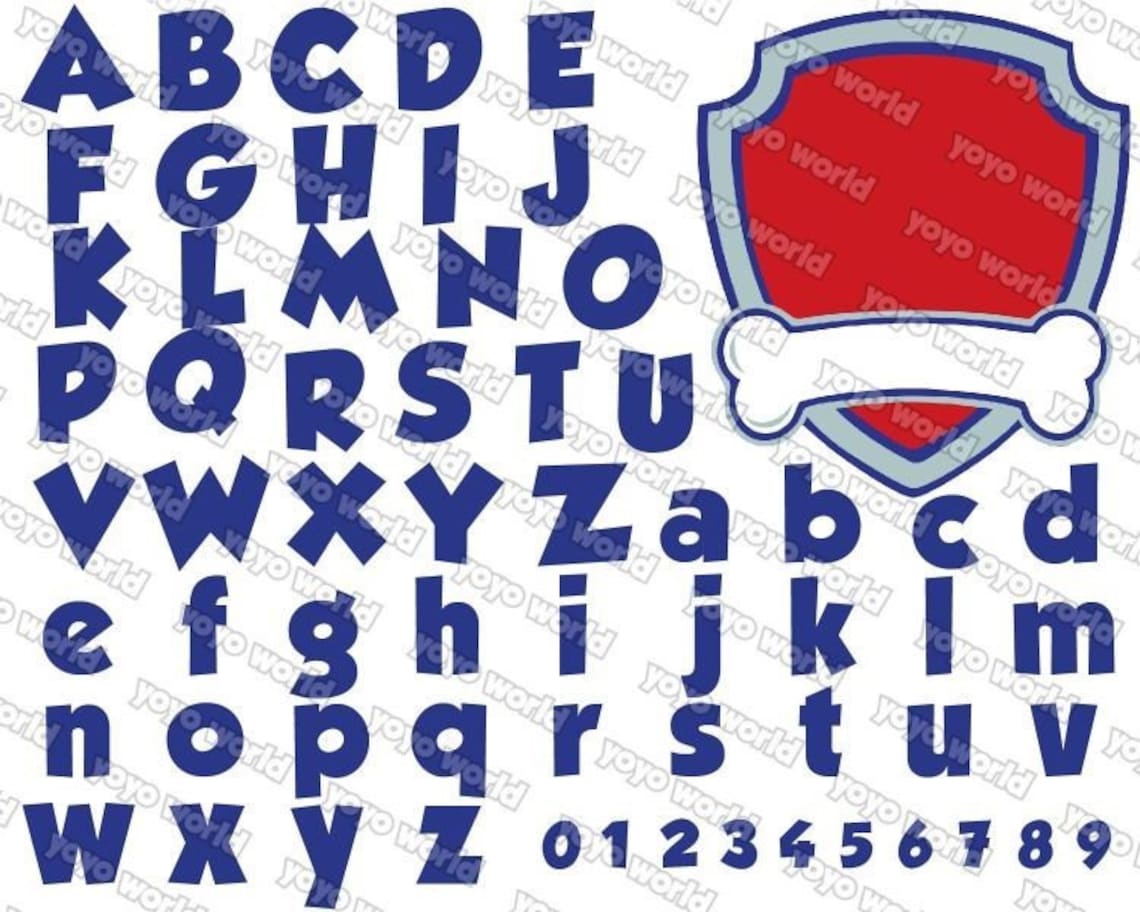
Free Paw Patrol Font
Free Paw Patrol Font - The paw patrol font family is based on an animated television show that was created by keith chapman. Paw patrol font has an elegant style, as. This tv series was first aired in. This free font family features numerals, styles and text figures which adorn its pages. Did you ever find a font for paw? this one is similar but not exact. Im looking for the paw patrol logo.
Paw patrol font has an elegant style, as. This free font family features numerals, styles and text figures which adorn its pages. Did you ever find a font for paw? this one is similar but not exact. The paw patrol font family is based on an animated television show that was created by keith chapman. This tv series was first aired in. Im looking for the paw patrol logo.
The paw patrol font family is based on an animated television show that was created by keith chapman. This tv series was first aired in. Paw patrol font has an elegant style, as. Did you ever find a font for paw? this one is similar but not exact. This free font family features numerals, styles and text figures which adorn its pages. Im looking for the paw patrol logo.
This free font family features numerals, styles and text figures which adorn its pages. This tv series was first aired in. The paw patrol font family is based on an animated television show that was created by keith chapman. Im looking for the paw patrol logo. Did you ever find a font for paw? this one is similar but not.
The paw patrol font family is based on an animated television show that was created by keith chapman. Im looking for the paw patrol logo. Paw patrol font has an elegant style, as. This free font family features numerals, styles and text figures which adorn its pages. Did you ever find a font for paw? this one is similar but.
The paw patrol font family is based on an animated television show that was created by keith chapman. This free font family features numerals, styles and text figures which adorn its pages. This tv series was first aired in. Im looking for the paw patrol logo. Did you ever find a font for paw? this one is similar but not.
This free font family features numerals, styles and text figures which adorn its pages. Paw patrol font has an elegant style, as. This tv series was first aired in. Did you ever find a font for paw? this one is similar but not exact. The paw patrol font family is based on an animated television show that was created by.
This tv series was first aired in. Did you ever find a font for paw? this one is similar but not exact. This free font family features numerals, styles and text figures which adorn its pages. Im looking for the paw patrol logo. Paw patrol font has an elegant style, as.
This tv series was first aired in. This free font family features numerals, styles and text figures which adorn its pages. Paw patrol font has an elegant style, as. Did you ever find a font for paw? this one is similar but not exact. The paw patrol font family is based on an animated television show that was created by.
This free font family features numerals, styles and text figures which adorn its pages. Im looking for the paw patrol logo. This tv series was first aired in. Did you ever find a font for paw? this one is similar but not exact. The paw patrol font family is based on an animated television show that was created by keith.
This tv series was first aired in. This free font family features numerals, styles and text figures which adorn its pages. Paw patrol font has an elegant style, as. Im looking for the paw patrol logo. The paw patrol font family is based on an animated television show that was created by keith chapman.
Im looking for the paw patrol logo. This tv series was first aired in. Did you ever find a font for paw? this one is similar but not exact. Paw patrol font has an elegant style, as. This free font family features numerals, styles and text figures which adorn its pages.
Did you ever find a font for paw? this one is similar but not exact. Im looking for the paw patrol logo. This tv series was first aired in. This free font family features numerals, styles and text figures which adorn its pages. The paw patrol font family is based on an animated television show that was created by keith.
This Free Font Family Features Numerals, Styles And Text Figures Which Adorn Its Pages.
The paw patrol font family is based on an animated television show that was created by keith chapman. Im looking for the paw patrol logo. Did you ever find a font for paw? this one is similar but not exact. Paw patrol font has an elegant style, as.